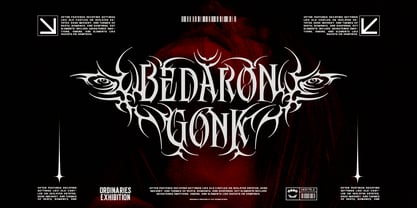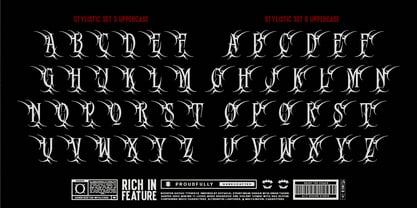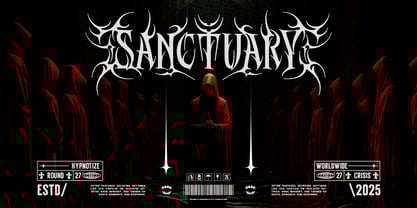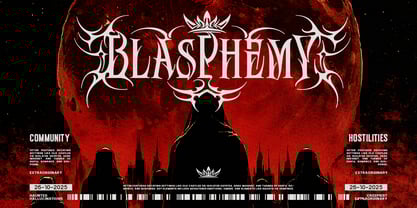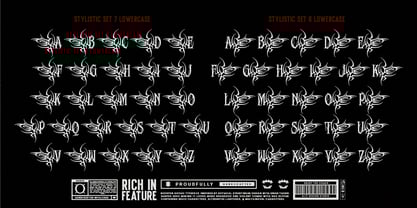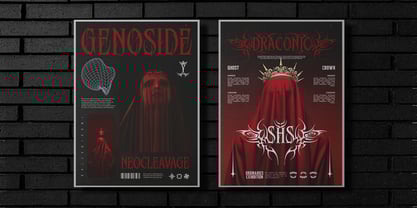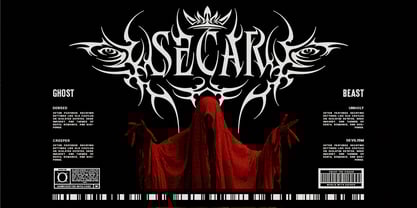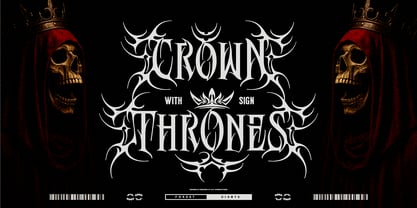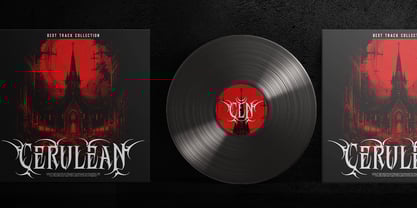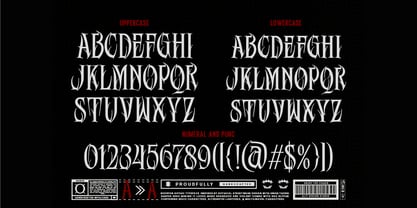
Nofayon
by Alit Design
The Nofayon Font Family was designed by Alit Suarnegara and published by Alit Design. Nofayon contains 1 styles.
Nofayon - Aggressive Gothic Streetwear Typeface Introducing Nofayon, an aggressive gothic typeface that channels the raw, untamed energy of underground streetwear and dark aesthetics. This font is not for the faint of heart. Inspired by "gothical streetwear design," Nofayon is defined by its unique, thorn-shaped edges that give every character a "violent and aggressive" feel, perfect for designs that demand to be seen. This isn't just a font; it's a complete design toolkit. Nofayon comes "Rich in Feature," boasting a massive 964 glyphs. This extensive library gives you unparalleled creative freedom. What's Included: Base Characters: A full set of sharp, aggressive Uppercase and Lowercase letters, plus Numerals & Punctuation that maintain the dark, edgy theme. Four Massive Stylistic Sets: Unleash the full power of Nofayon with Stylistic Set 1, Set 2, Set 3, and Set 4. These alternate alphabets are loaded with intricate, thorny swashes and ligatures, transforming your text into a piece of custom lettering art. Extensive Alternates & Ligatures: Create unique, flowing, and chaotic lockups that look hand-drawn and menacing. Multilingual Support: Communicate your dark message to a global audience. Perfect For: Nofayon is built to "Enjoy the Chaos." It's the ultimate choice for: Streetwear Brands: Create standout logos, t-shirt graphics, and hoodie designs. Music Industry: Design brutal metal band logos, "Blasphemy" album covers, and tour posters. Horror & Dark Themes: Perfect for movie titles, book covers, and event posters with themes of "Ghosts," "Vampires," "Beasts," and "Haunted Hallucinations." Tattoo Design: Craft unique, edgy, and custom tattoo lettering. Branding: Any project that needs a "hostile," "unholy," or powerfully aggressive identity. Embrace the darkness and add Nofayon to your collection. This font is a statement piece, giving you the power to create designs that are as captivating as they are menacing.
Designers: Alit Suarnegara
Publisher: Alit Design
Foundry: Alit Design
Design Owner: Alit Design